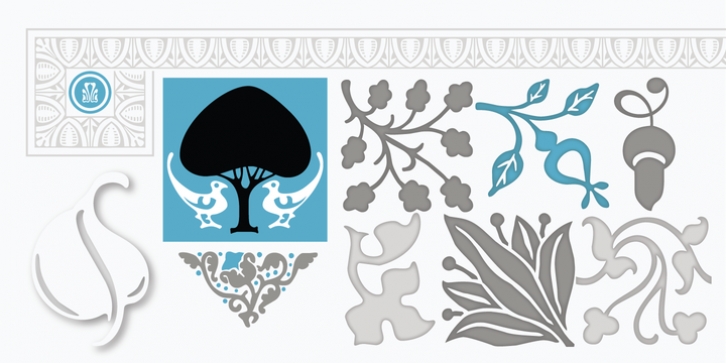
LTC Ornaments Three was published by Lanston Type Company. LTC Ornaments Three contains 1 style.
LTC Ornaments Three combines ornaments previously released as 'Printers Vine Leaves C', 'Printers Fleurons C' and 'Water Garden Ornaments Round' plus additional Lanston ornaments for a total of over 70 printers ornaments for single accentuation or combined for border creation.